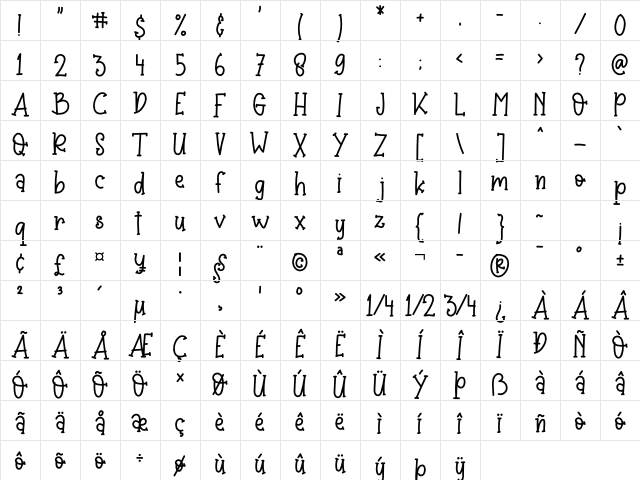
Baby Crab Regular
Foundry: Heru Utama Putra
Designer: Heru Utama Putra
Design Context for Baby Crab
Baby Crab is a composed and adaptable typeface that performs quietly and consistently across a wide range of design contexts.